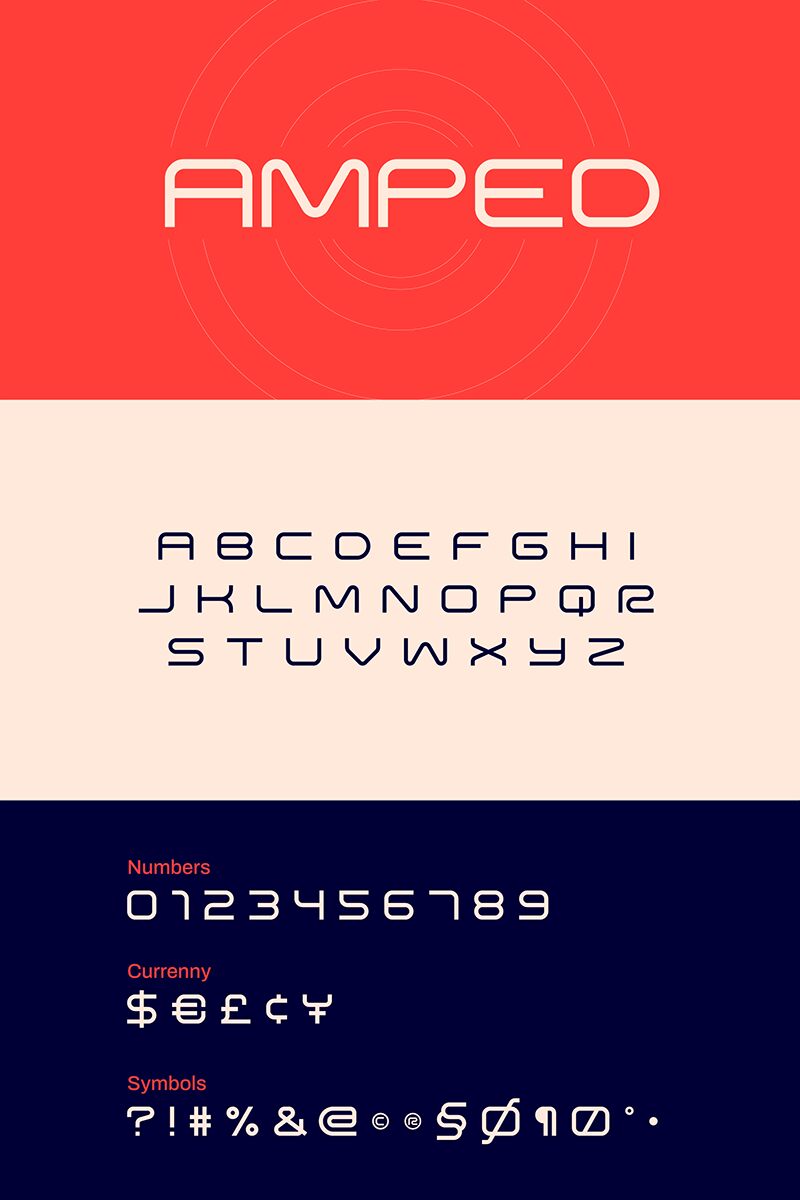
Amped font family by Foyez Uddin is a free techno font in two styles. The typeface portrays a futuristic look and feel characterized by minimalist geometric shapes and modern letterforms. Its sleek technical calligraphy contributes to the font’s clean and contemporary visual appearance. All in all, the stylish font combines simple details into an exceptional and versatile tool perfect for all your various design projects.
Amped technical futuristic font suits posters, book covers, album covers, app interfaces, and any digital or printed project with technological or futuristic themes. Its legibility also makes it suitable for branding, logotypes, and body text in magazines, digital publications, and other uses.